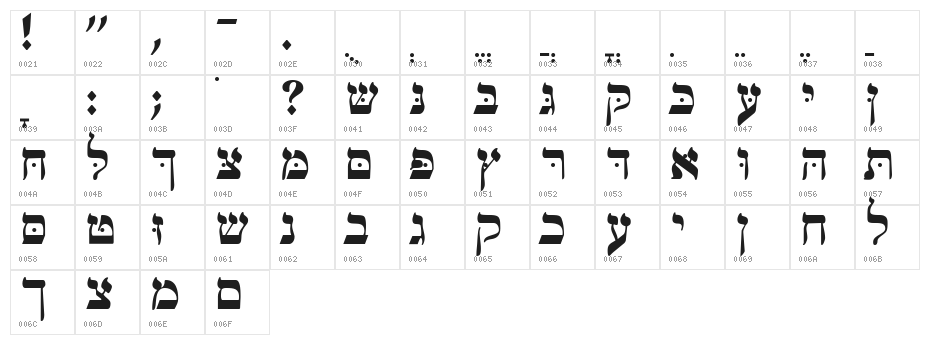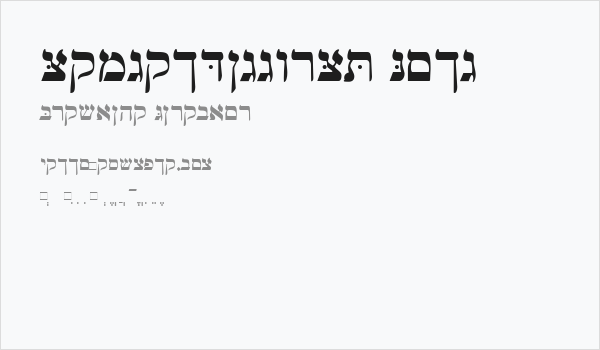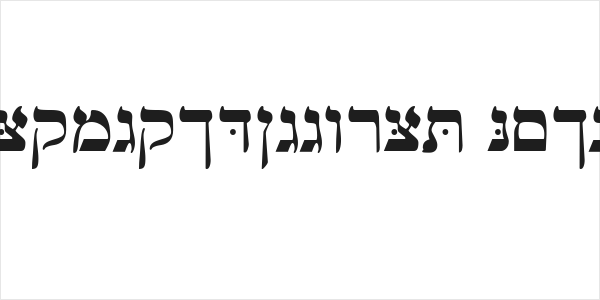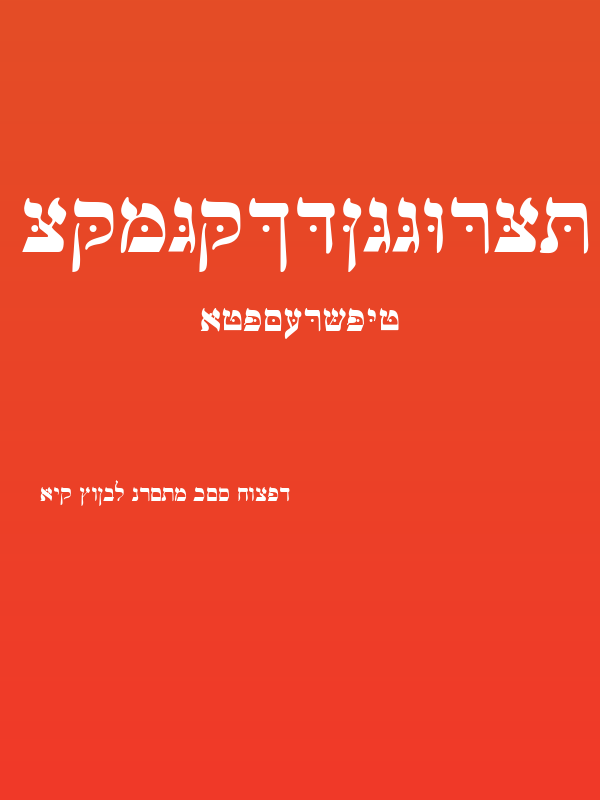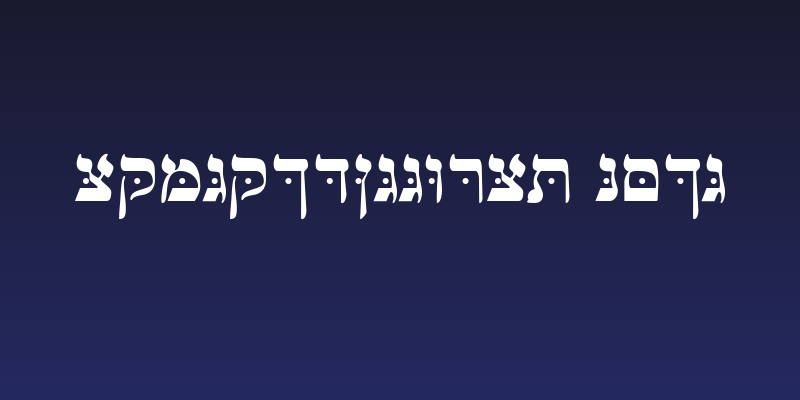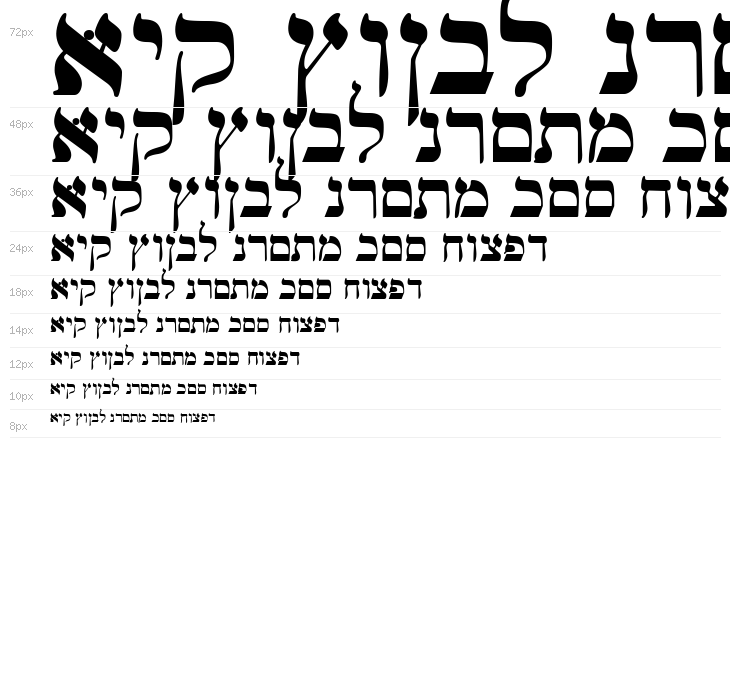
MendelSiddurMW Bold Font
MendelSiddurMW Bold Description
This font exhibits a bold and traditional Hebrew script style, characterized by thick, prominent strokes and a strong presence. The letters are well-defined with a classic serif influence, giving them a formal and authoritative appearance. The script includes diacritical marks, enhancing its use for religious or scholarly texts. The overall design is balanced, with consistent weight across characters, making it suitable for both display and text purposes. The font's boldness ensures readability while maintaining an elegant and timeless aesthetic.
| Use Case | Headlines, Body text, Religious texts |
| Proposed Projects | Ideal for religious texts, scholarly publications, formal documents, and cultural projects requiring a traditional Hebrew script. |